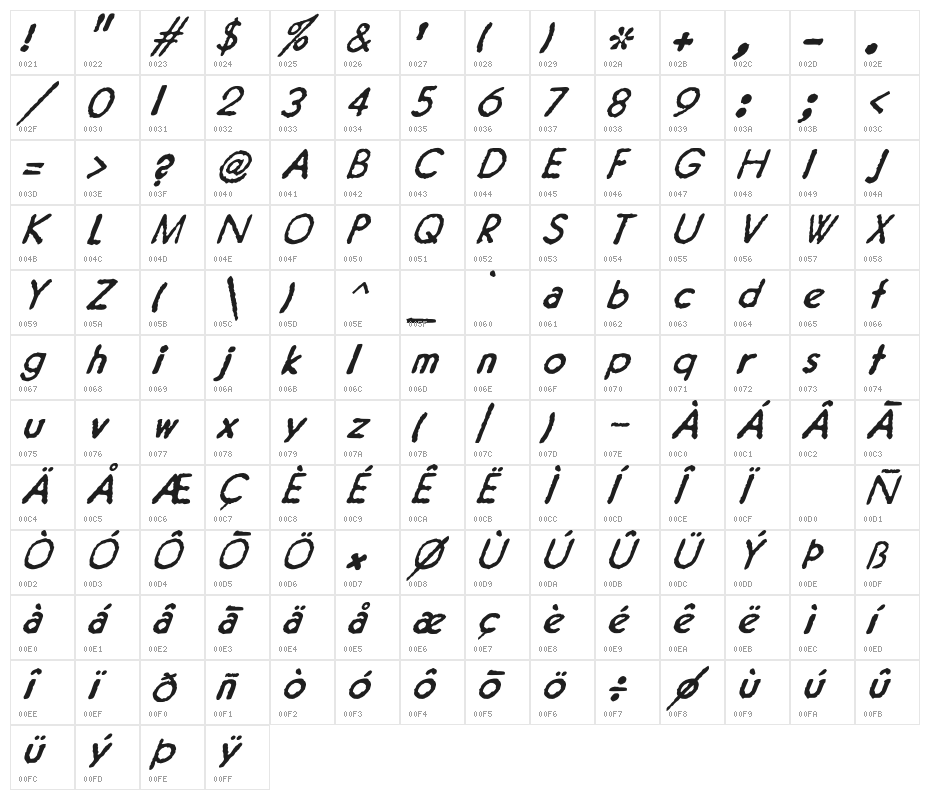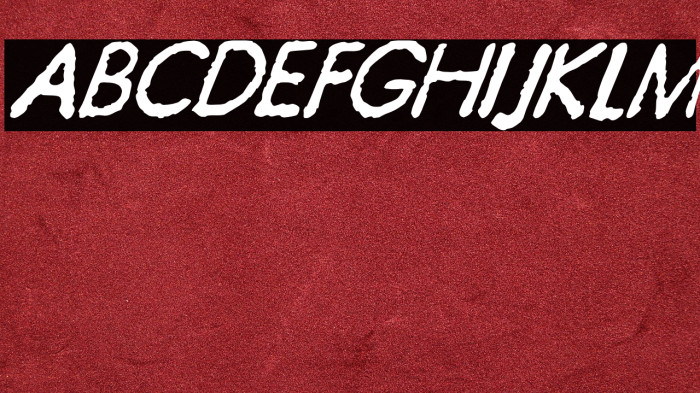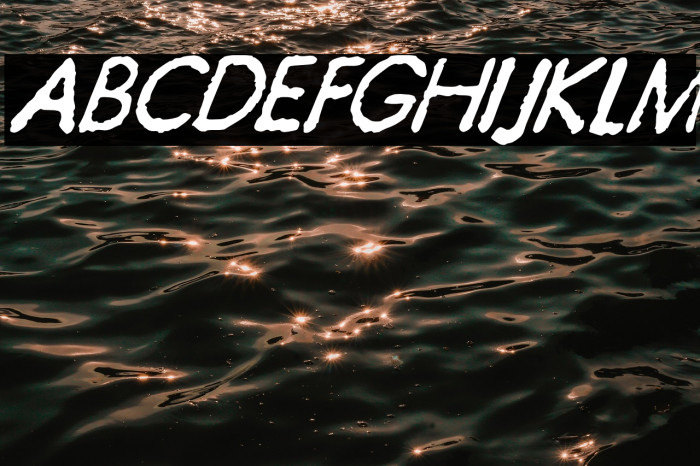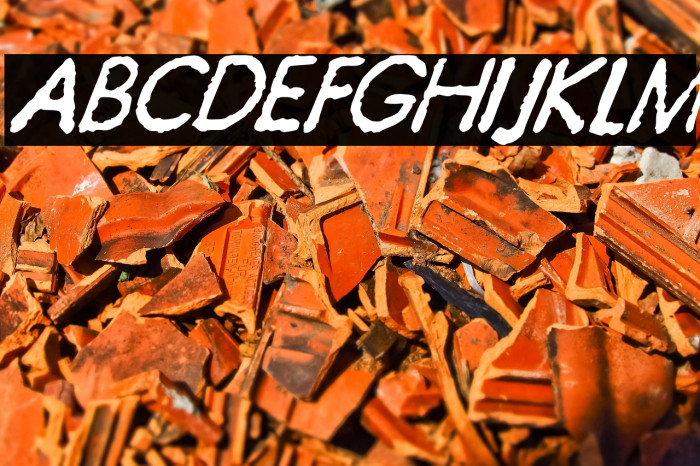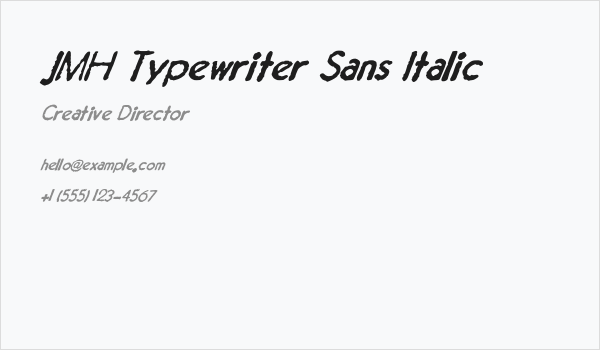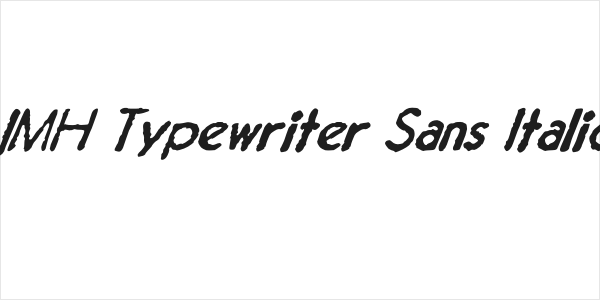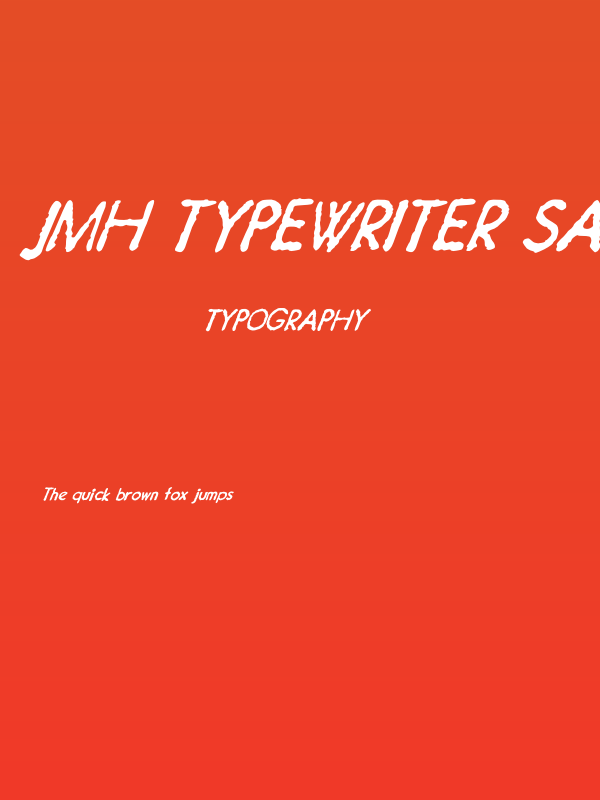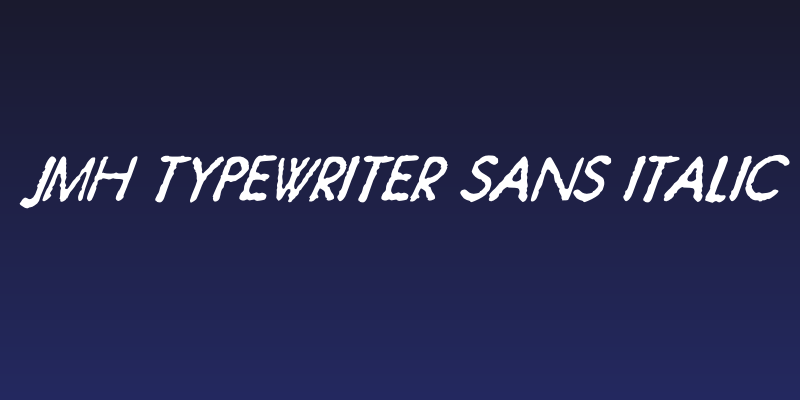
JMH Typewriter Sans Italic Font
JMH Typewriter Sans Italic Description
This typeface features a distinctive handwritten style that mimics the look of typewriter text with an italic slant. The characters are bold and slightly irregular, giving them a vintage, authentic feel. The uppercase and lowercase letters maintain a consistent style, with rounded edges and a slightly condensed form. Numbers and special characters are designed to match the overall aesthetic, providing a cohesive look across all glyphs. The font's boldness and unique style make it suitable for projects that require a touch of nostalgia or a personal, handwritten touch.
| Proposed Projects | Ideal for retro-themed designs, personal notes, invitations, and branding that requires a nostalgic touch. |